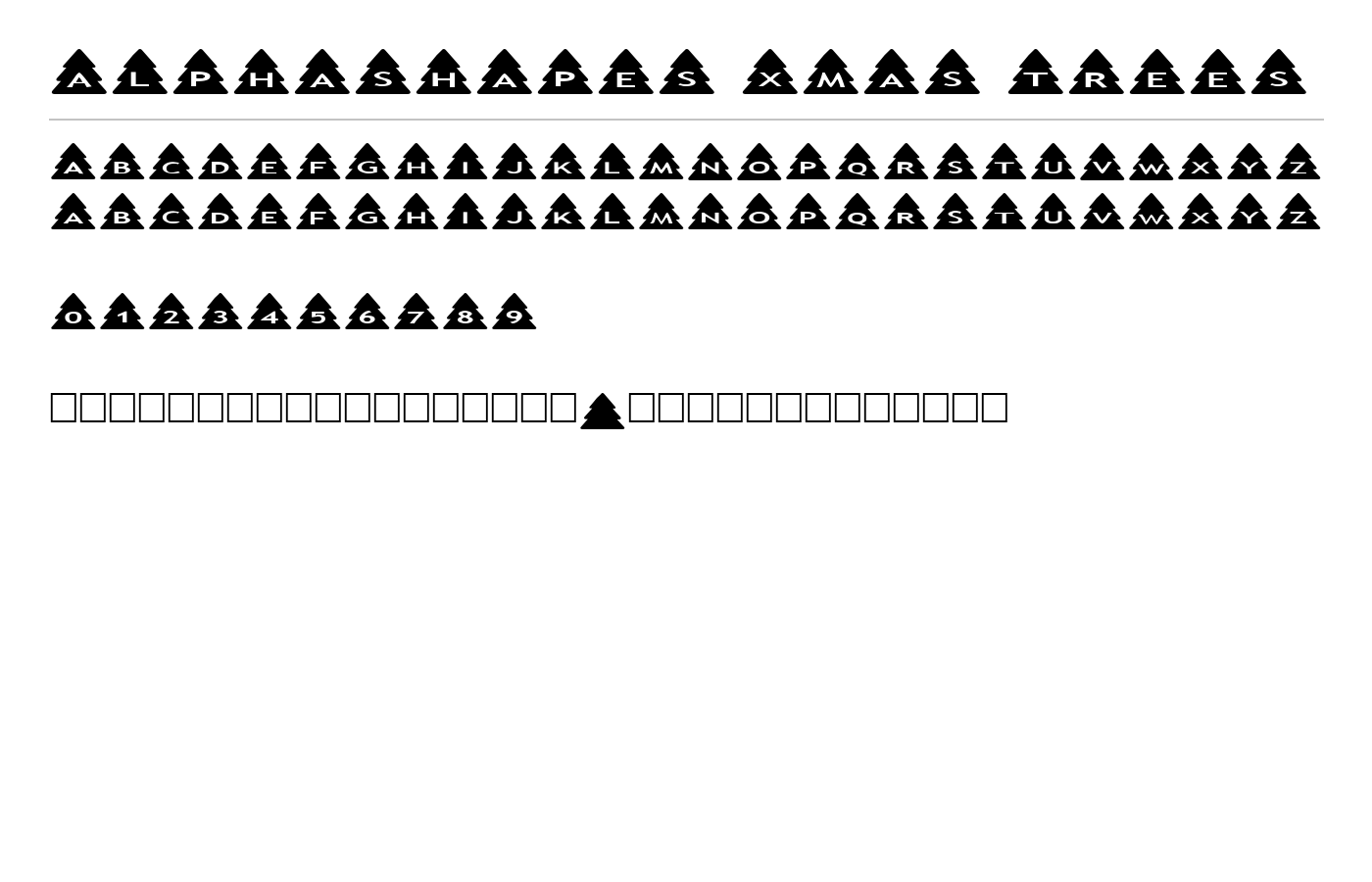
AlphaShapes xmas trees is a playful decorative font featuring uppercase letters and numbers cleverly integrated into solid black Christmas tree shapes. This bold, festive typeface works best for holiday-themed designs, party invitations, seasonal greetings, and packaging, adding a fun and cheerful touch that clearly communicates a joyful winter spirit. Its unique combination of symbol and letter makes it a perfect choice for eye-catching headlines and decorative accents rather than body text.
AlphaShapes xmas trees Font